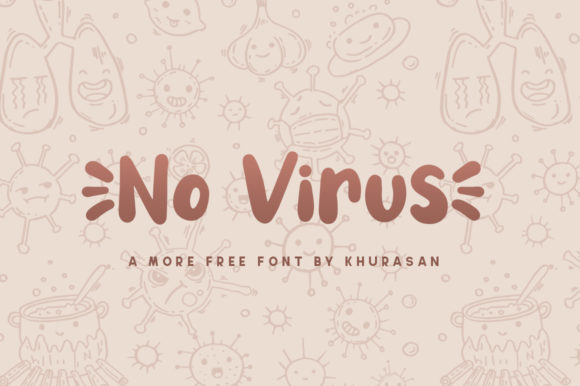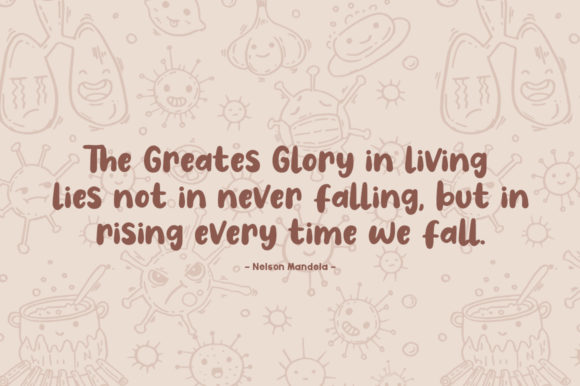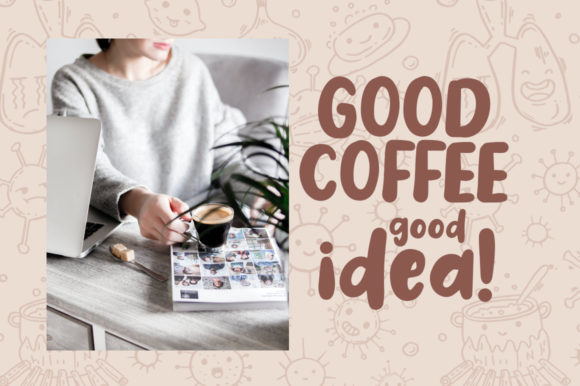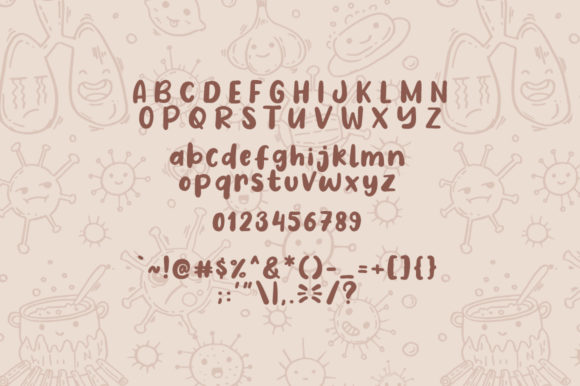
No Virus
About No Virus Font
No Virus is a modern & fancy display font. It’s perfect for posters, logos, magazines, cover books, banners, and much more!